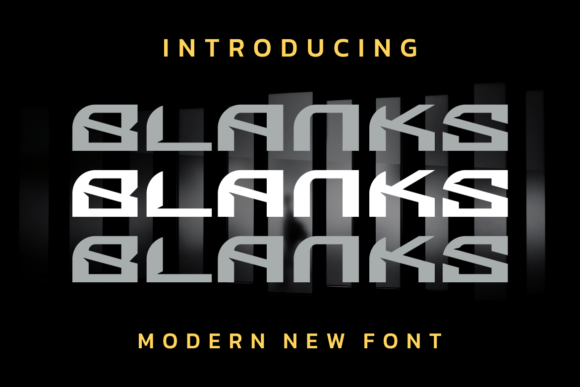
**Introducing Blanks Font - The Font That Transforms Your Designs**
Prepare to be mesmerized by Blanks, a captivating display font that will elevate your designs to unprecedented heights. Crafted with meticulous attention to detail by the renowned Marvadesign, Blanks is a masterpiece that combines elegance, innovation, and boundless creativity.
**Experience the Allure of Blanks**
Blanks is not merely a font; it's an invitation to embark on a visual adventure. Its unique characters, meticulously designed with graceful curves and balanced proportions, create a harmonious symphony that dances across your designs. Each letter is a testament to the artistry of Marvadesign, inviting you to explore the realm of typography with unparalleled style.
**Versatile and Limitless**
Blanks is more than just a beautiful font; it's a versatile chameleon that adapts seamlessly to any design concept. Whether you're crafting enchanting logos, captivating posters, or eye-catching social media graphics, Blanks empowers you to express your creativity without boundaries. Its ability to transform ordinary designs into extraordinary works of art is truly remarkable.
**Ignite Your Imagination**
With Blanks, your imagination knows no limits. Dive into a world where words come alive, captivating your audience with their charm and allure. Create designs that evoke emotions, tell stories, and leave an unforgettable impression. Blanks is the key to unlocking your creative potential and unleashing the full spectrum of your design abilities.
**Indulge in Typographic Bliss**
Experience the pure joy of working with a font that inspires you at every turn. Blanks is meticulously designed to provide an exceptional user experience, ensuring smooth and effortless flow as you bring your designs to life. Its versatility and ease of use make it the perfect choice for both seasoned designers and those just starting their typographic journey.
**Elevate Your Designs Today**
Don't settle for ordinary fonts that blend into the background. Embrace the transformative power of Blanks and watch your designs soar to new heights. Whether you're a seasoned professional or an aspiring designer, Blanks is the essential tool that will ignite your creativity and empower you to create designs that captivate and inspire.